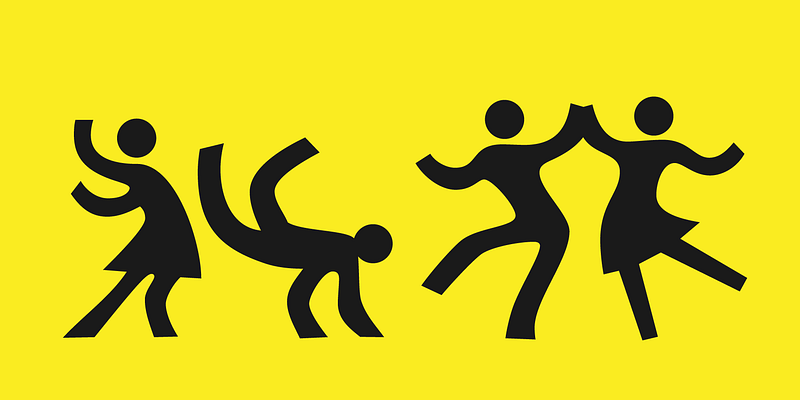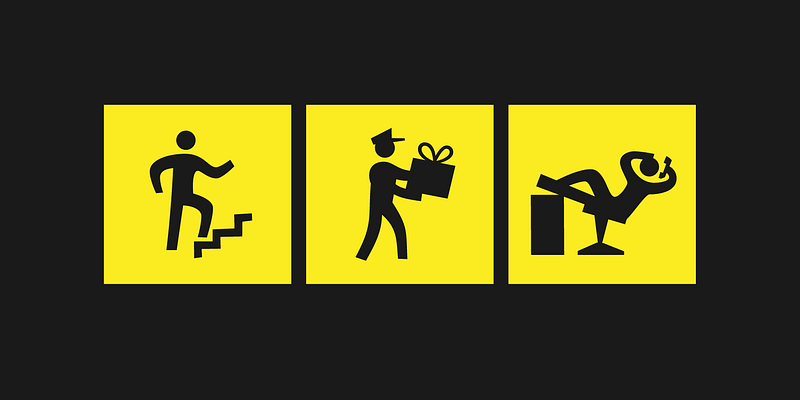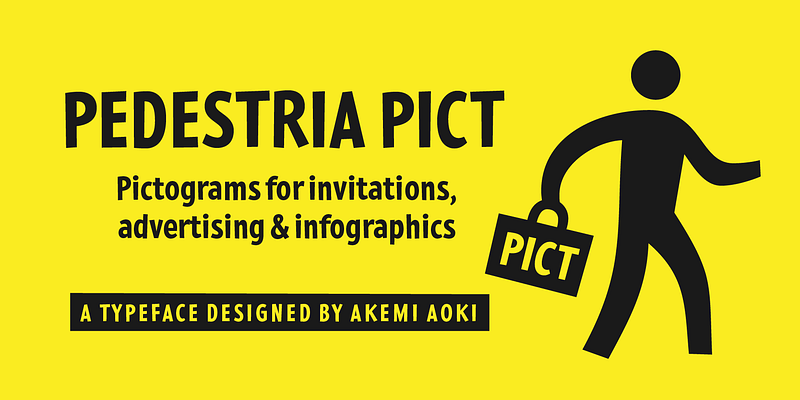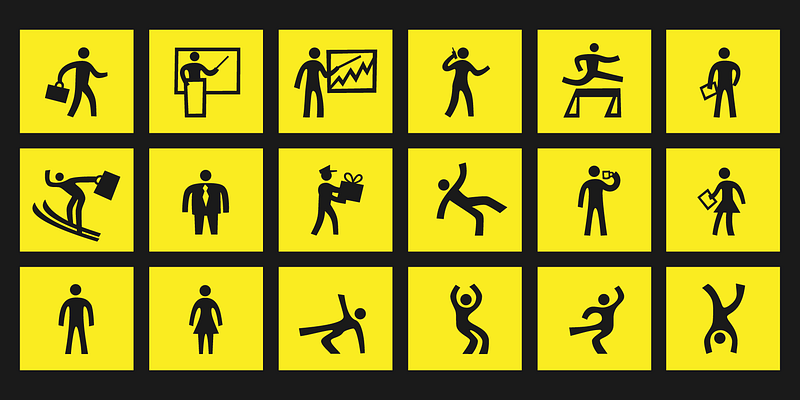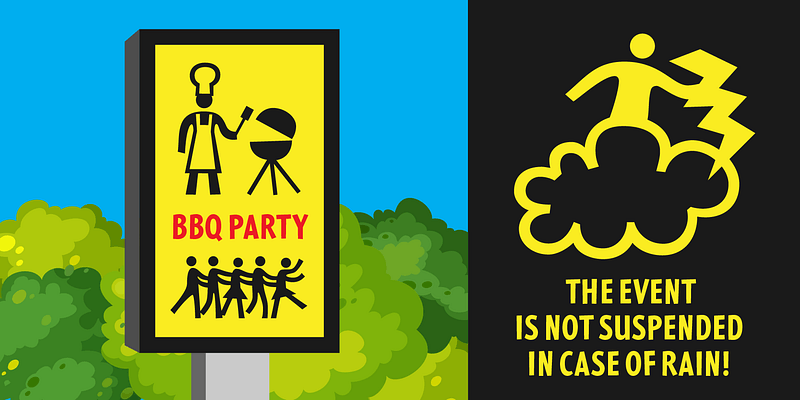
Lettering on a vintage bottle cap served as inspiration for MVB Pedestria. Akemi Aoki’s design is simple and legible, yet full of life, thanks to its loose, casual forms. Two sets of irreverent Pict fonts take characters from ubiquitous public restroom door symbology to a new level, providing playful pictograms for invitations, advertising, and infographics.